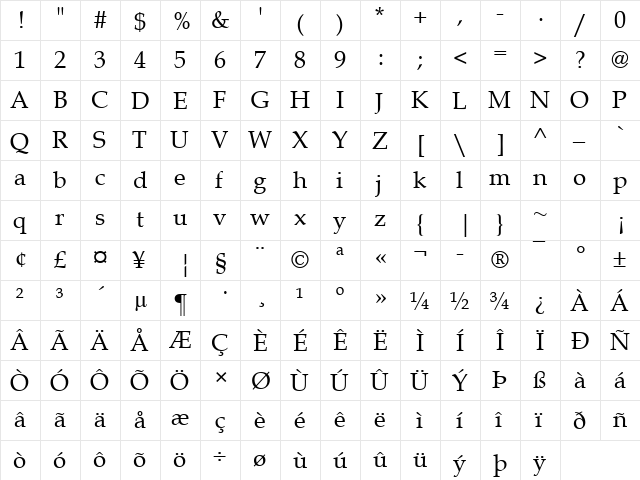
Book Antiqua Regular
| Foundry | Monotype Typography, Inc. |
| Designer | Monotype Type Drawing Office |
Design Context for Book Antiqua Typeface
Book Antiqua offers clean, dependable letterforms without strong stylistic allegiance, making it a practical choice for designers who need flexibility.
Pro Tip: Use Book Antiqua in both headline and body roles to test its range before committing to a single application.